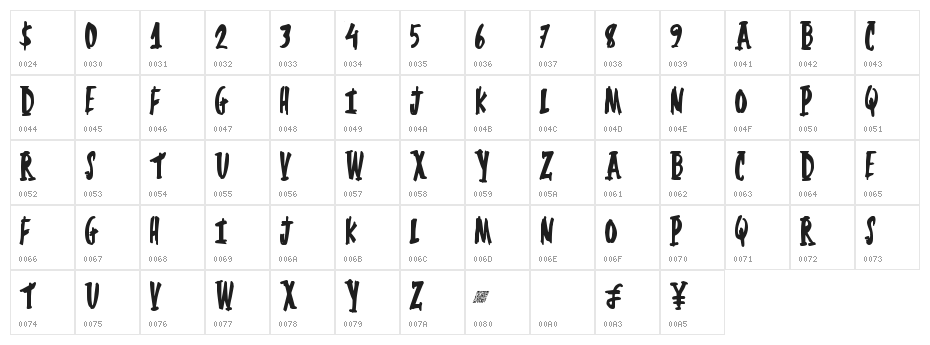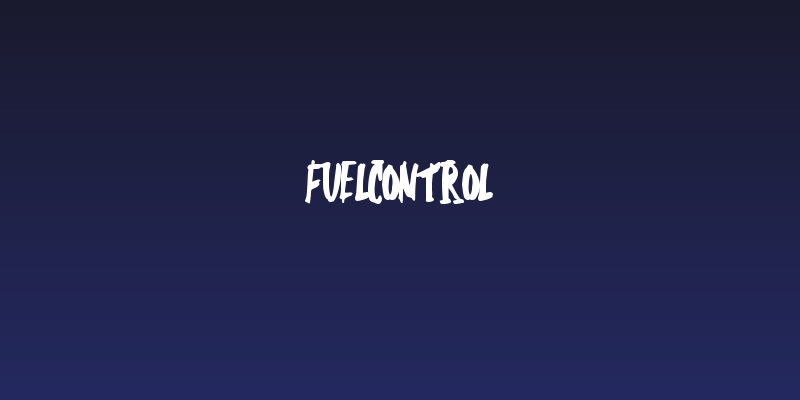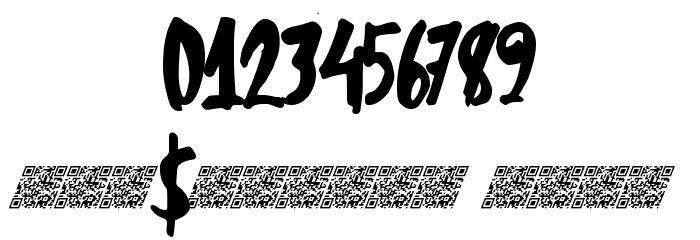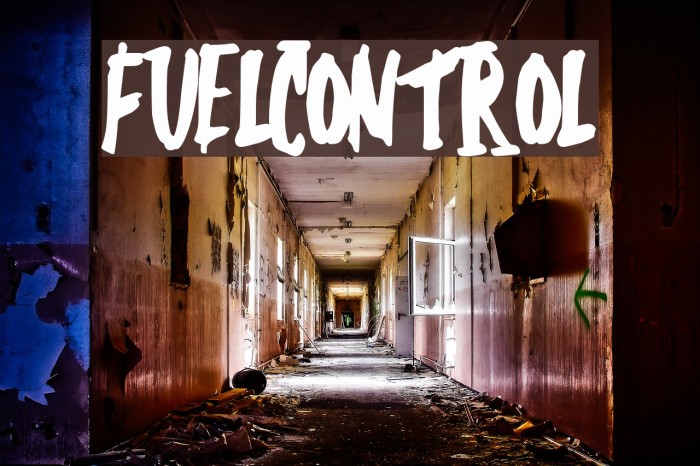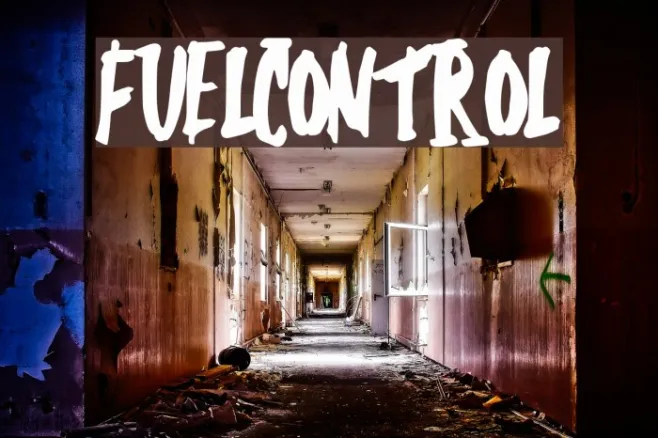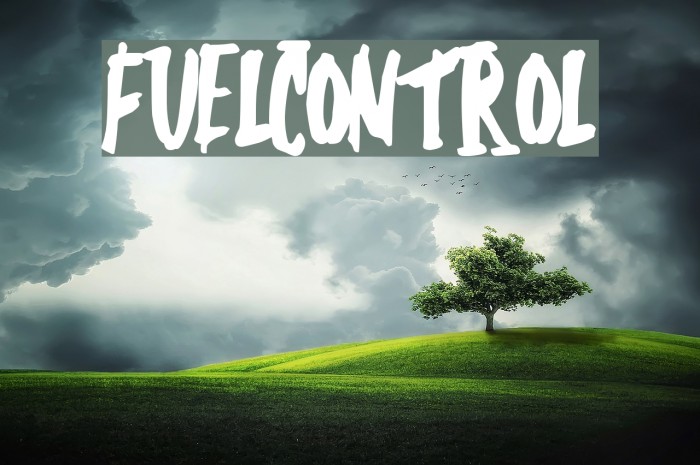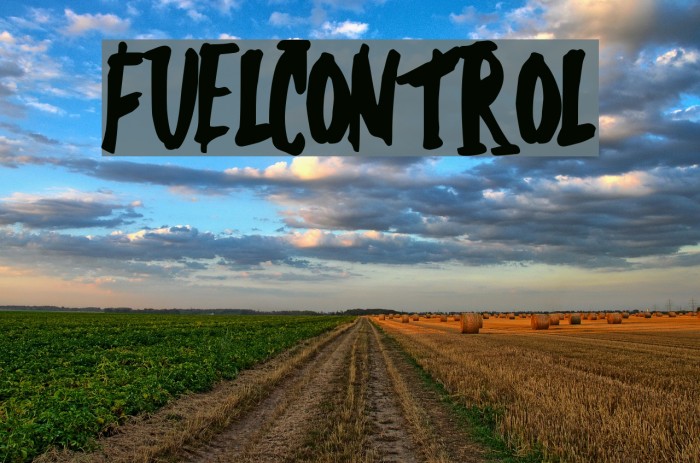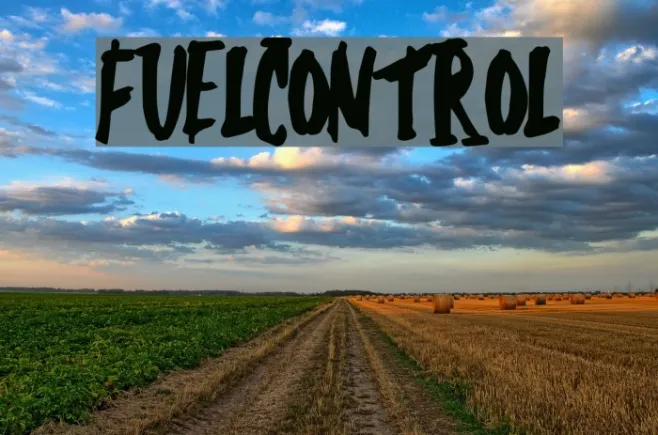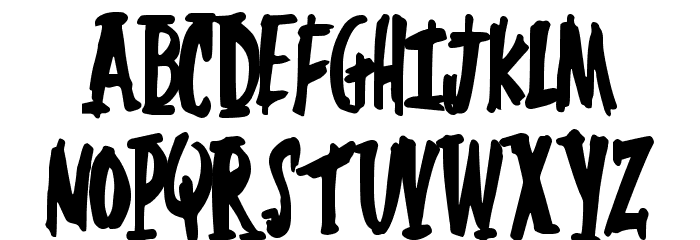
FuelControl Font
FuelControl Description
This font features a bold, energetic style with a handwritten appearance. The characters are slightly irregular, giving it a dynamic and informal feel. The strokes are thick and expressive, with a playful and artistic vibe. The uppercase and lowercase letters maintain a consistent style, while the numbers and special characters complement the overall design. This font is ideal for projects that require a lively and eye-catching typeface.
| Proposed Projects | Perfect for posters, event flyers, branding, and social media graphics that need a vibrant and informal touch. |